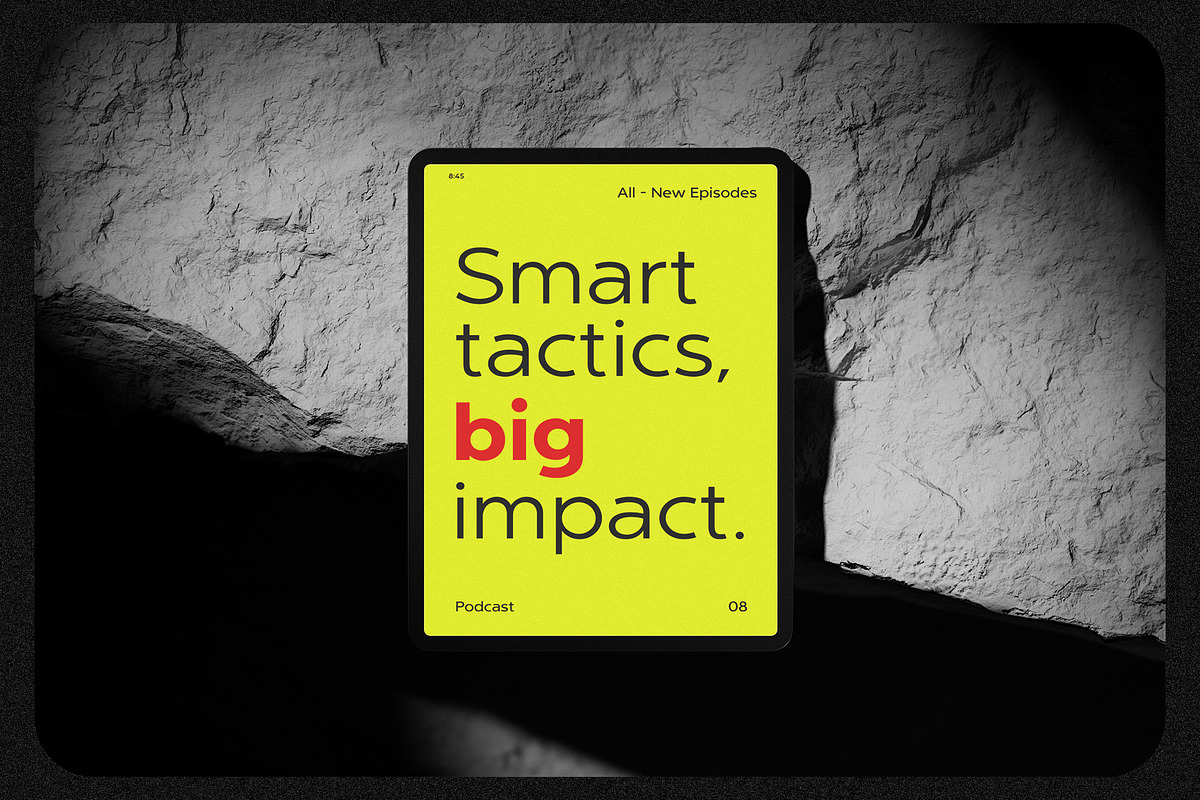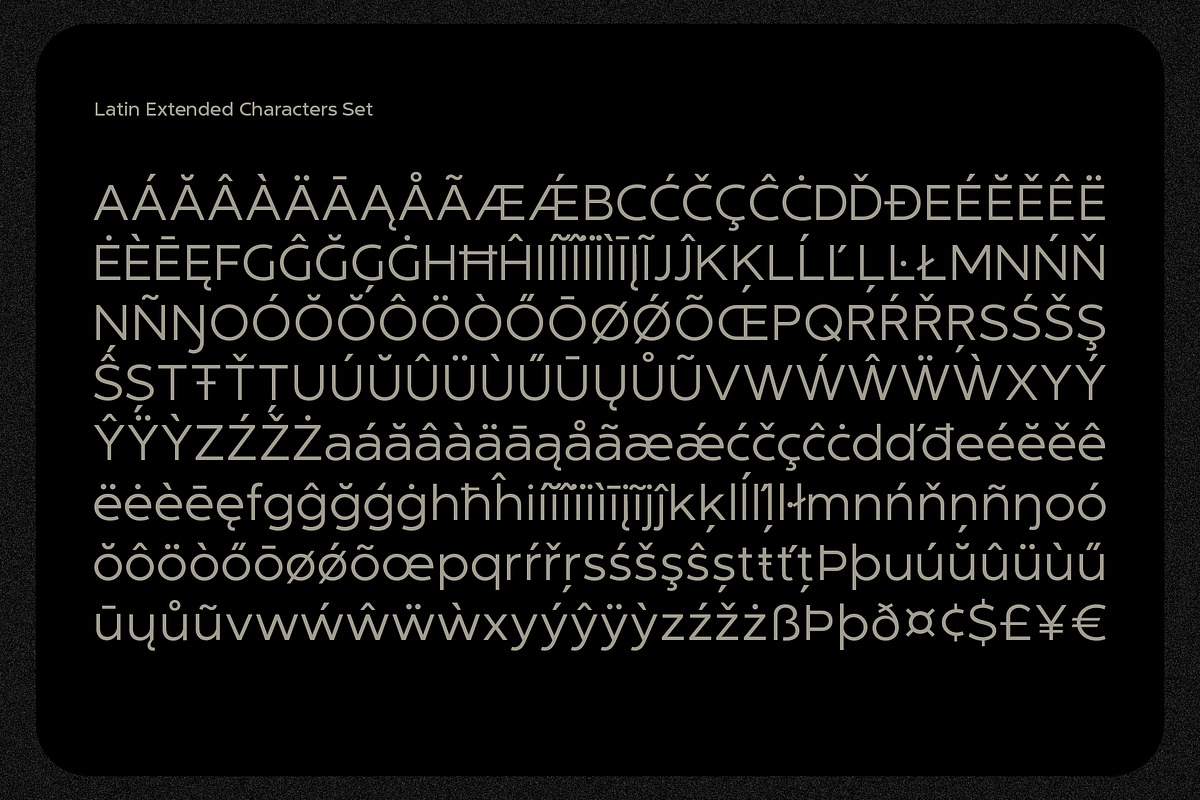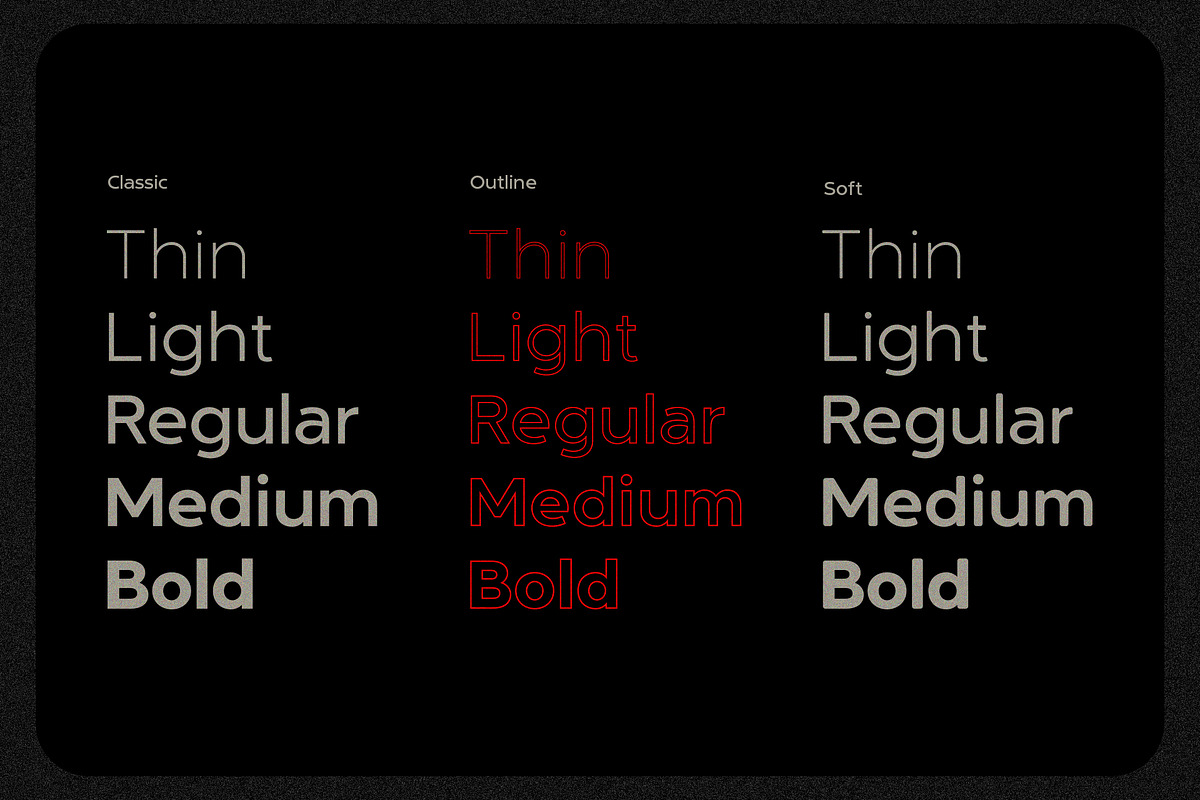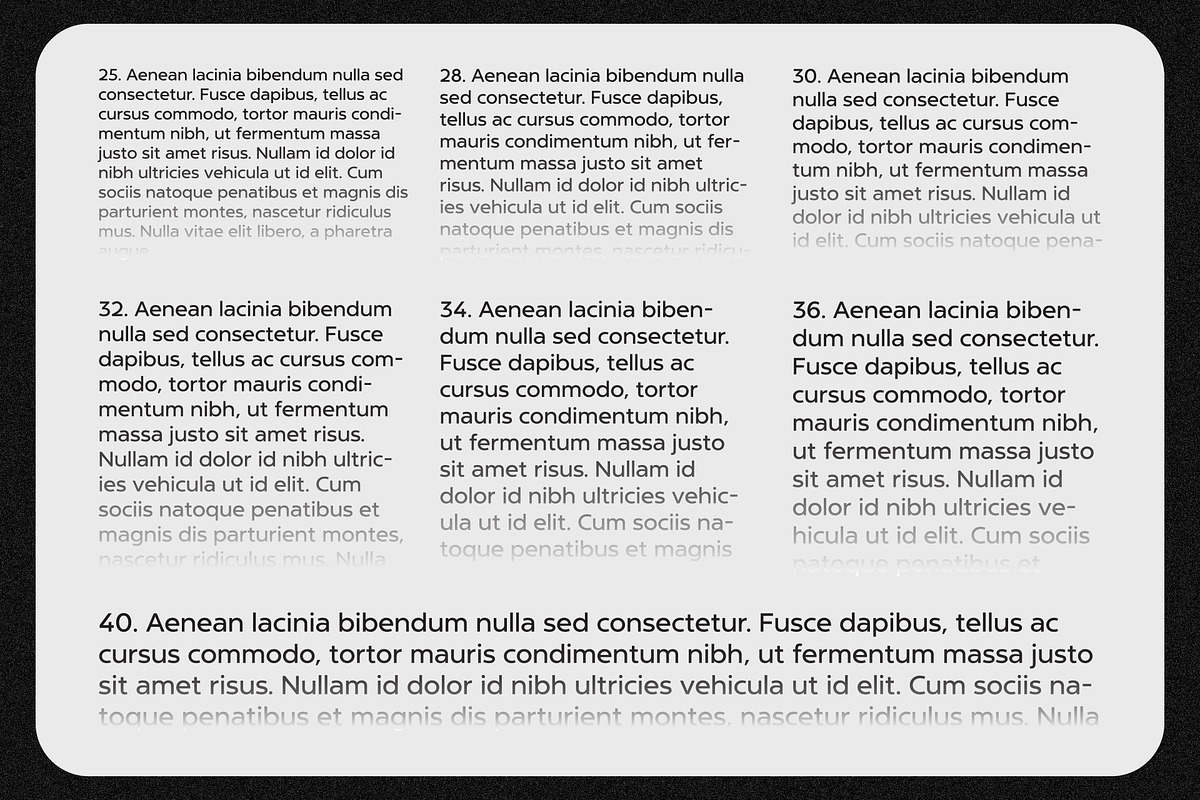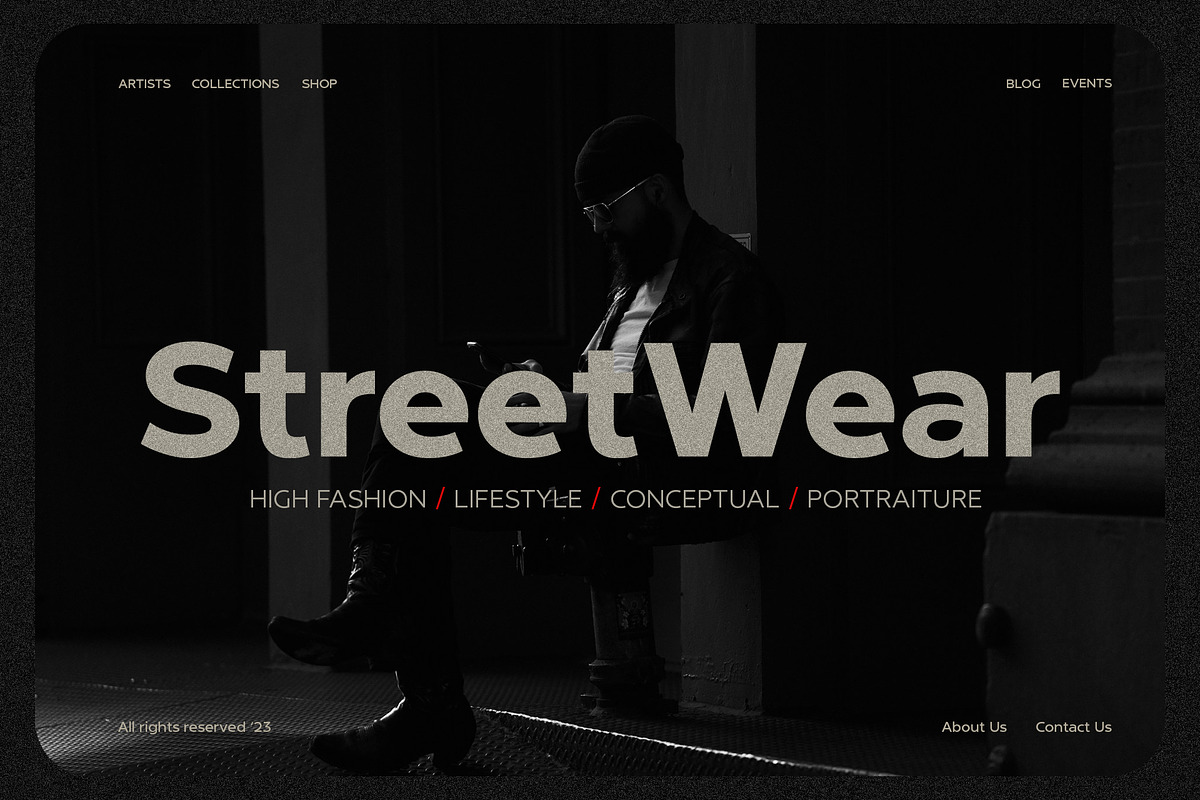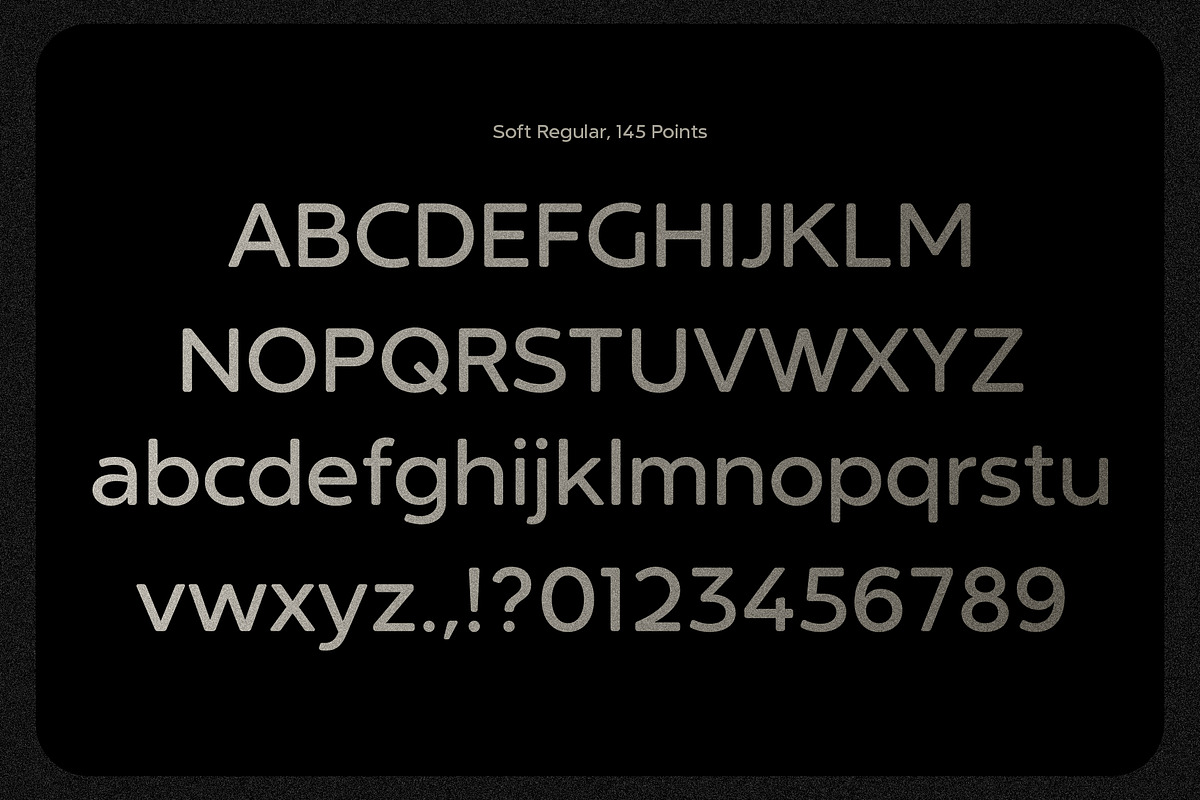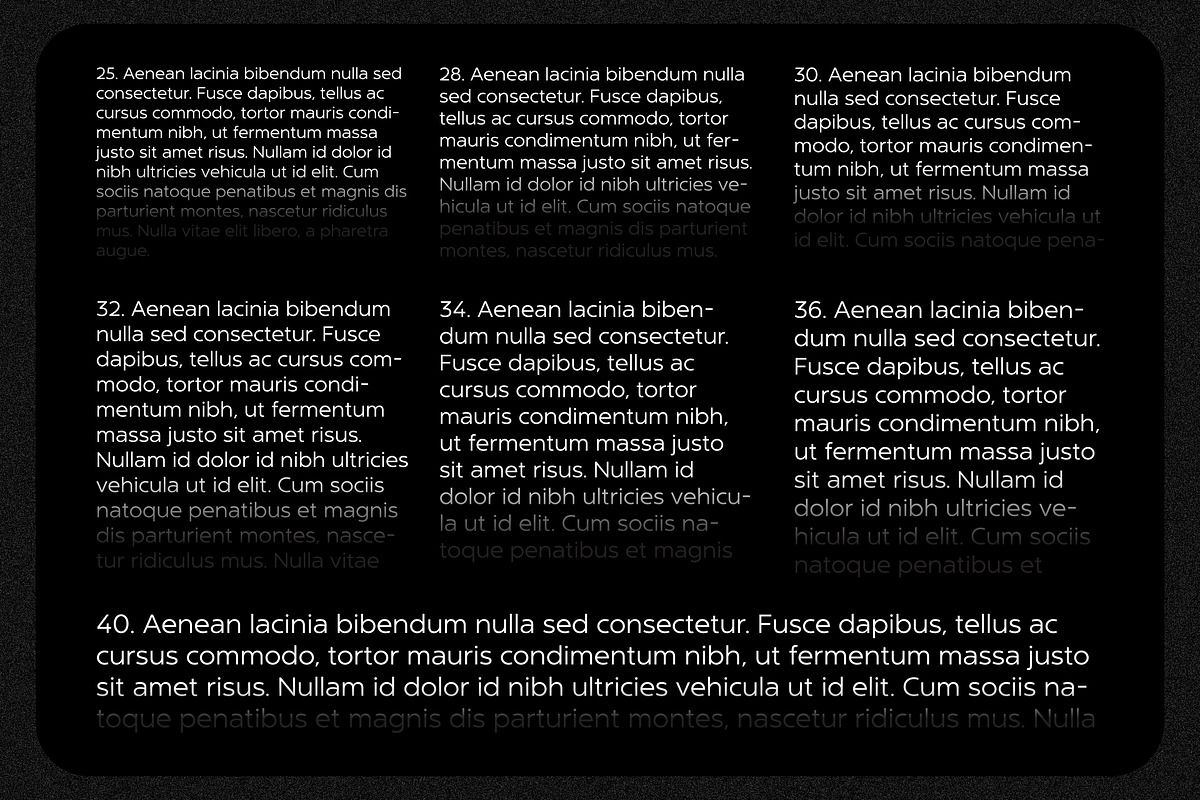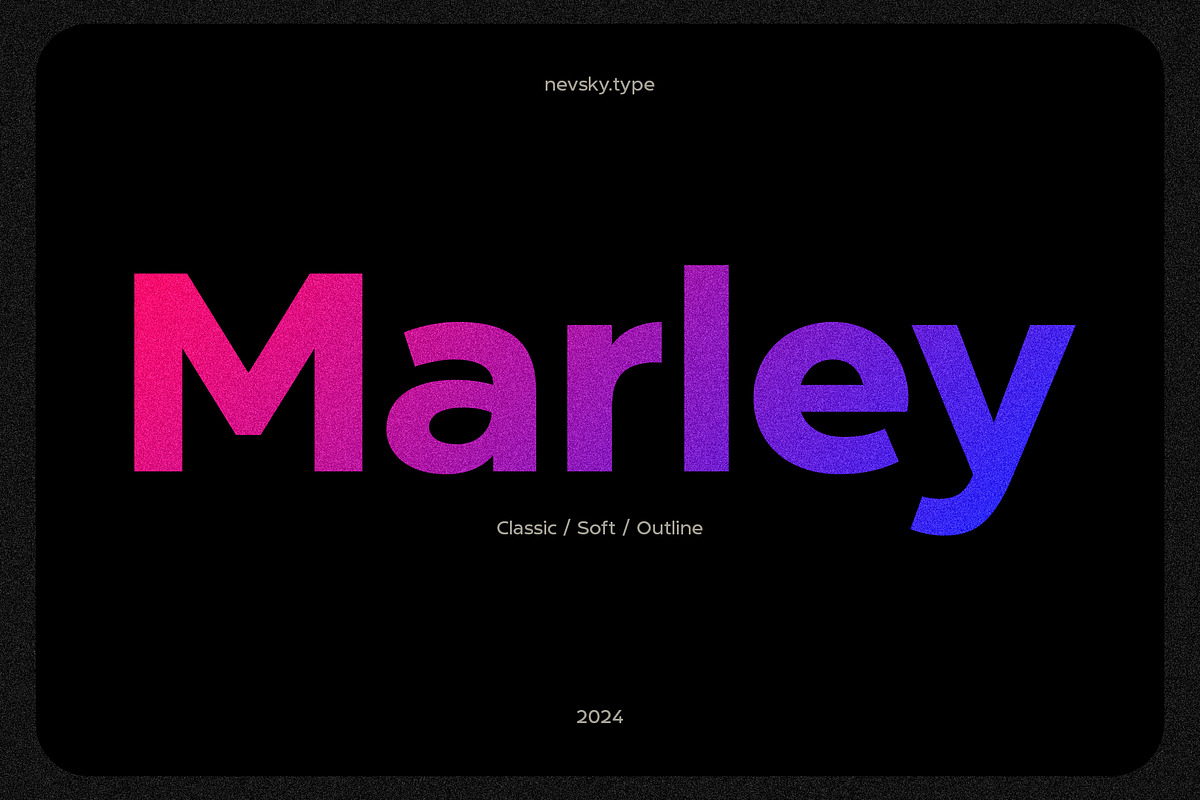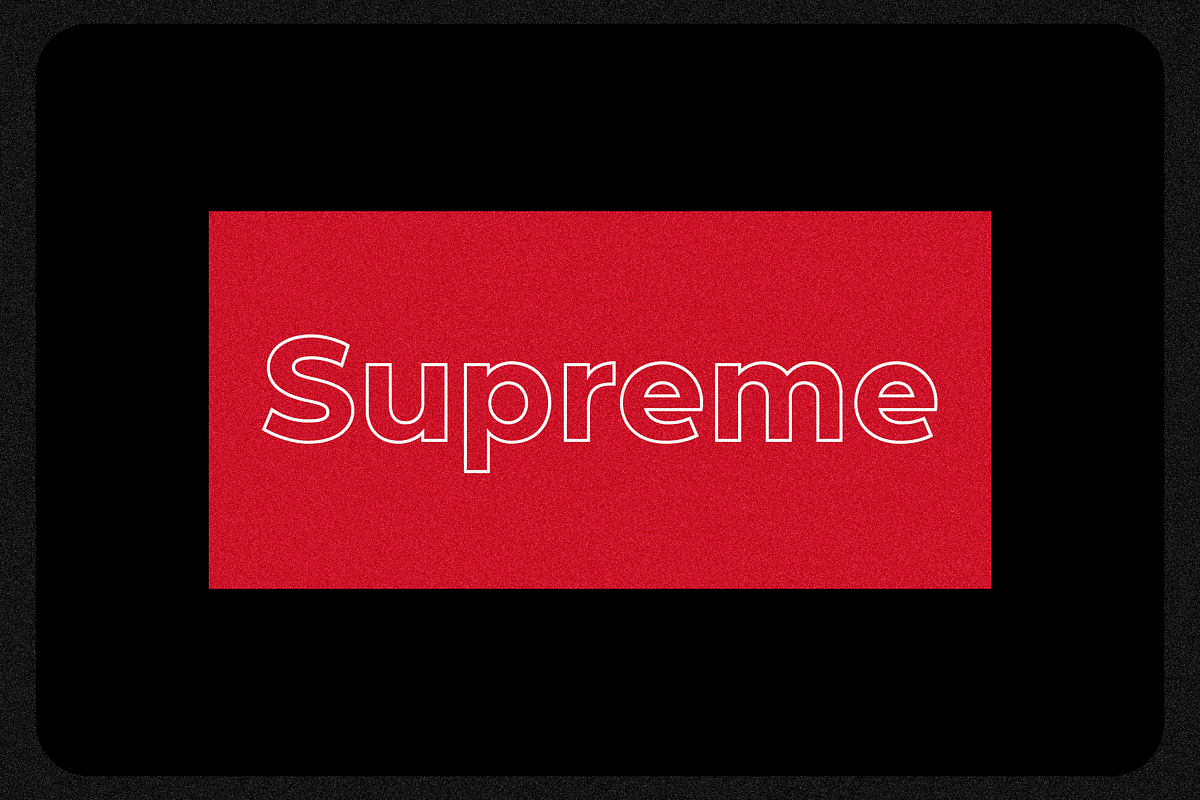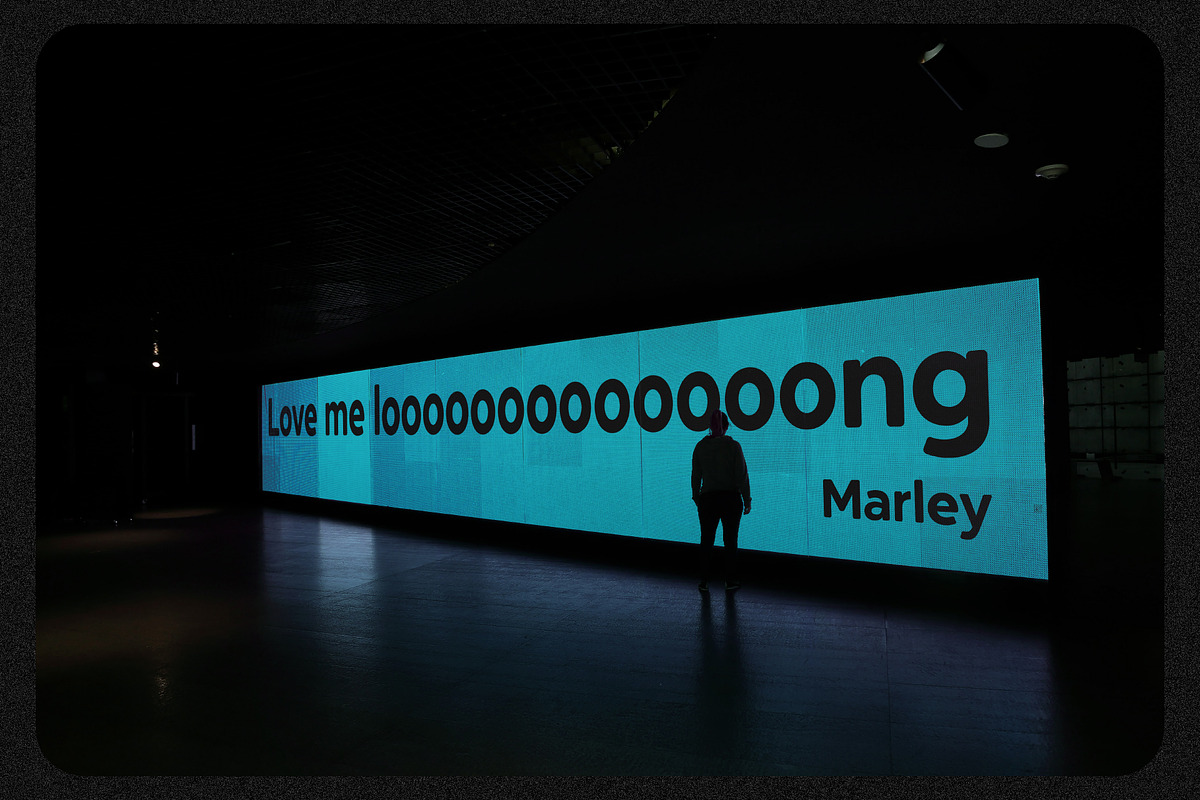
NT Marley
NT Marley is a new sans serif fontfamily. This font needs to be in your collection and is perfect for your next design project.
NT Marley supports over 200 Latin-based languages.